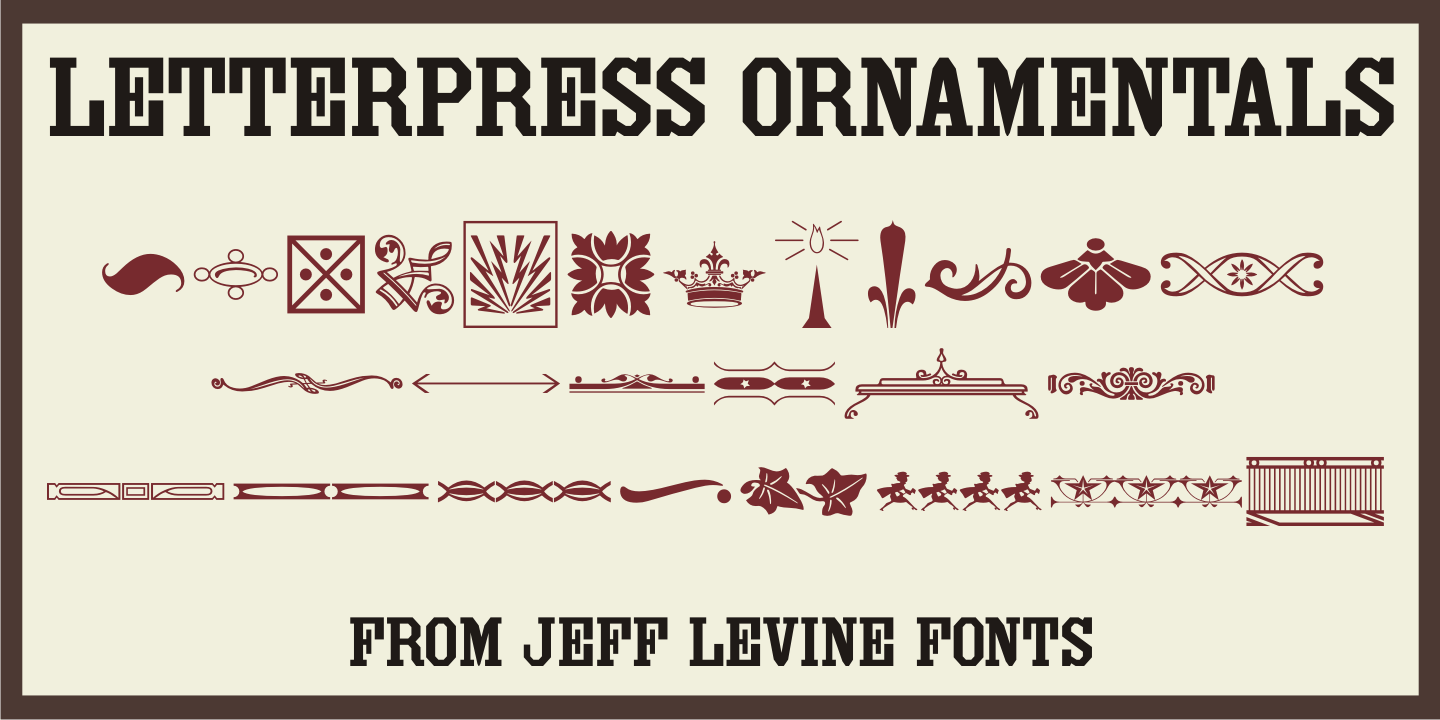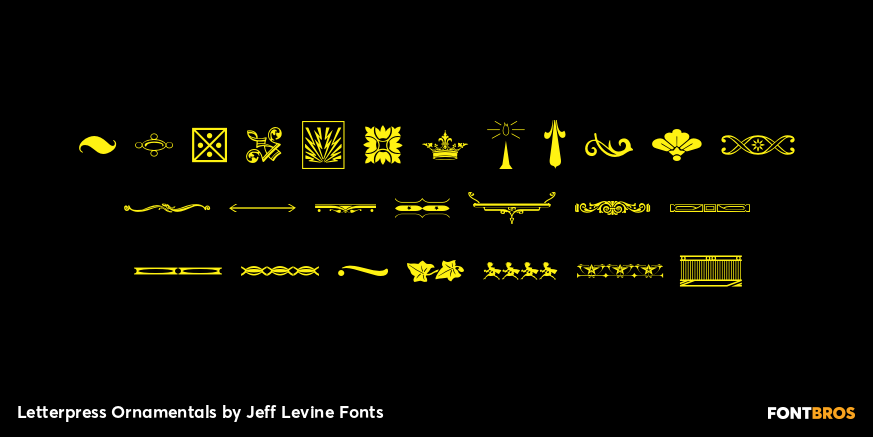
Letterpress Ornamentals
Letterpress Ornamentals JNL collects twenty-six decorative embellishments, corner pieces, borders, separators and ornaments for enhancing your print project.